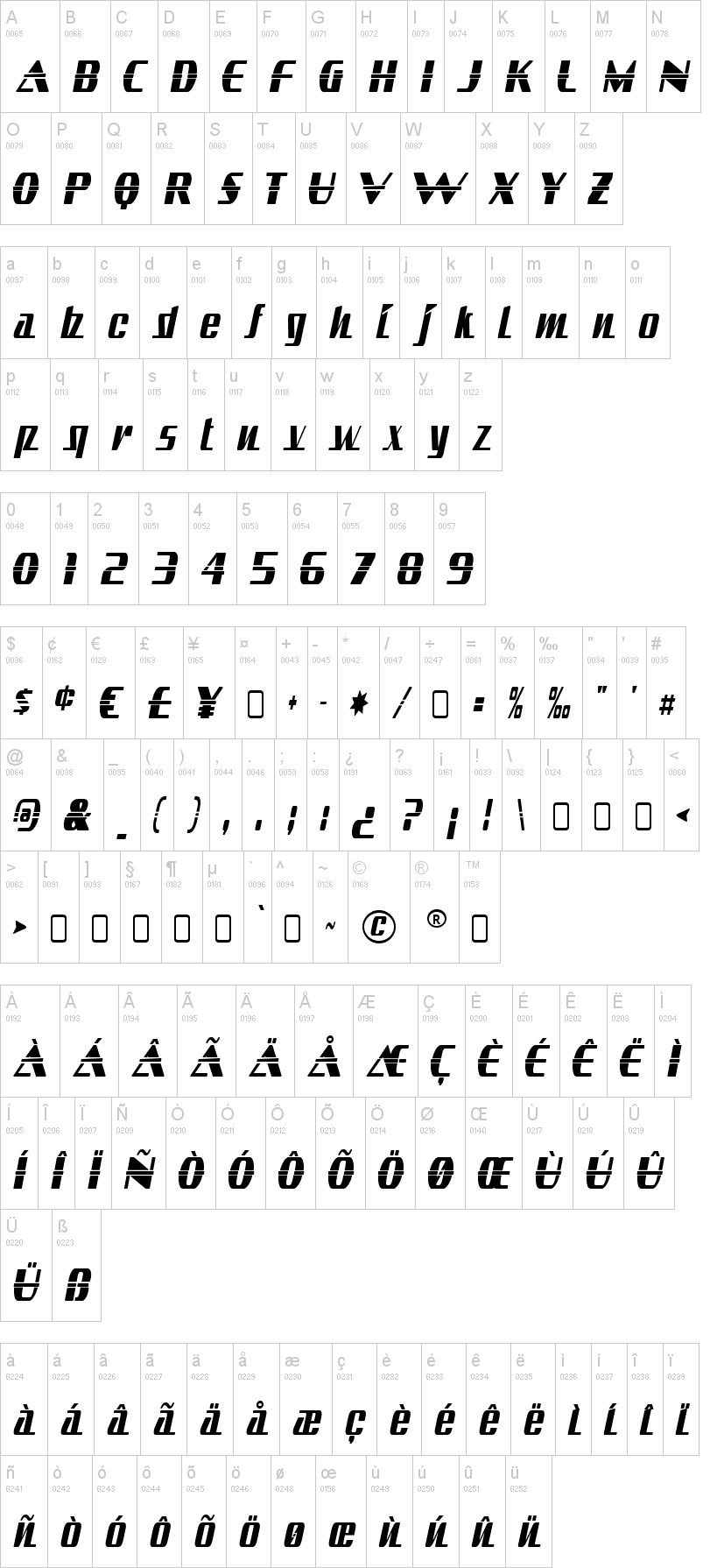
Шрифт Sandoval
Sandoval is a self-propelled commercial/industrial headline thumper. Don't forget to read the files inside the zip for details. Updated in 2012.